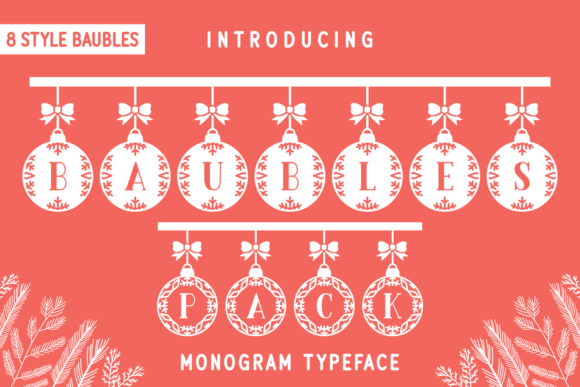
Baubles Pack Font: Add a Festive Touch to Your Holiday Creations
The winter holidays are just around the corner, and with them comes the joy of creating special gifts, decorations, and marketing materials that capture the spirit of the season. If you’re a designer, crafter, or DIY enthusiast looking for a font that embodies the festive and charming atmosphere of Christmas, look no further than the Baubles Pack Font. This delightful font is perfect for adding a touch of holiday magic to your projects, and in this article, we’ll explore its features and benefits.
What is Baubles Pack Font?
Baubles Pack Font is a decorative font designed specifically for the winter holidays. Its playful and charming design makes it ideal for creating Christmas gifts, home decor items, marketing materials, banners, and more. The font is PUA encoded, which means you can easily access all the glyphs and swashes, giving you endless creative possibilities.
Key Features of Baubles Pack Font
- Festive and Charming Design: Baubles Pack Font boasts a unique and festive design that captures the essence of the winter holidays. Its playful and charming style is sure to add a touch of holiday magic to your projects.
- PUA Encoding: The font is PUA encoded, making it easy to access all the glyphs and swashes. This feature allows you to get creative with your designs and add special touches to your projects.
- Versatile Use: Baubles Pack Font is perfect for a wide range of applications, including Christmas gifts, home decor items, marketing materials, banners, and more.
Baubles Pack Font offers numerous benefits for designers and crafters looking to create unique and festive holiday projects. Some of the benefits include:
- Customization Options: With PUA encoding, you can easily access all the glyphs and swashes, allowing you to customize your designs and add a personal touch.
- Time-Saving: Baubles Pack Font saves you time and effort in creating holiday designs from scratch. Simply use the font to add a festive touch to your projects and make them stand out.
Ideas for Using Baubles Pack Font
The possibilities are endless when it comes to using Baubles Pack Font. Here are some ideas to get you started:
- Christmas Gifts: Use Baubles Pack Font to create personalized Christmas gifts, such as customized ornaments, gift tags, and wrapping paper.
- Home Decor Items: Add a festive touch to your home decor items, such as holiday banners, garlands, and signs.
- Marketing Materials: Use Baubles Pack Font to create eye-catching marketing materials, such as holiday-themed advertisements, flyers, and brochures.
- DIY Projects: Get creative with Baubles Pack Font and use it for your DIY projects, such as handmade cards, gift boxes, and holiday-themed crafts.
Baubles Pack Font is a festive and charming decorative font that’s perfect for adding a touch of holiday magic to your designs. With its PUA encoding, versatile use, and ease of use, it’s an ideal choice for designers, crafters, and DIY enthusiasts looking to create unique and festive holiday projects. Whether you’re creating Christmas gifts, home decor items, marketing materials, or DIY projects, Baubles Pack Font is sure to make your designs stand out. So why wait? Get creative with Baubles Pack Font and make this holiday season one to remember!